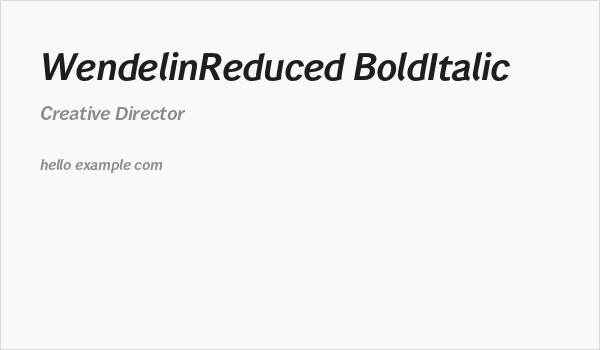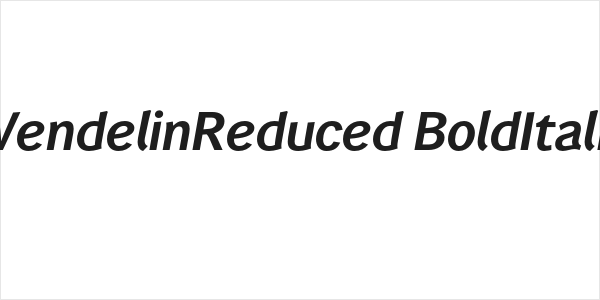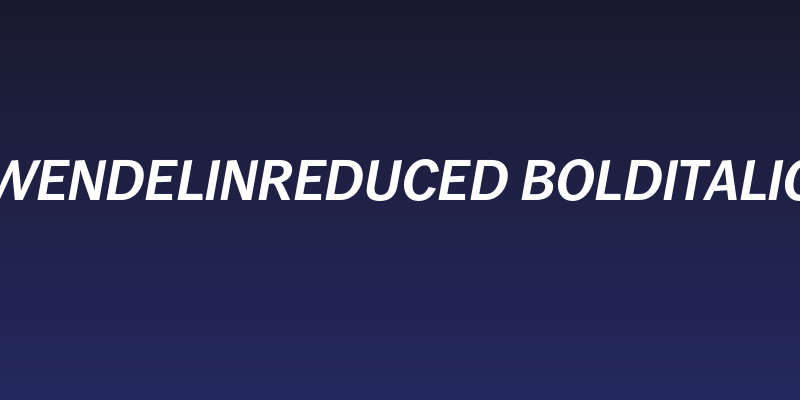
WendelinReduced-BoldItalic Font
WendelinReduced-BoldItalic Description
This font features a bold and italic style, characterized by its strong and dynamic appearance. The letters are slightly slanted, adding a sense of movement and elegance. The strokes are consistent in thickness, providing a uniform look across all characters. The font maintains a clean and modern aesthetic, making it suitable for various design applications. Its readability is enhanced by the clear distinction between each letter, despite the italicized form. The overall design is sleek and professional, ideal for making a bold statement in any project.
| Proposed Projects | Ideal for branding, advertising, headlines, and any project requiring a bold and modern touch. |